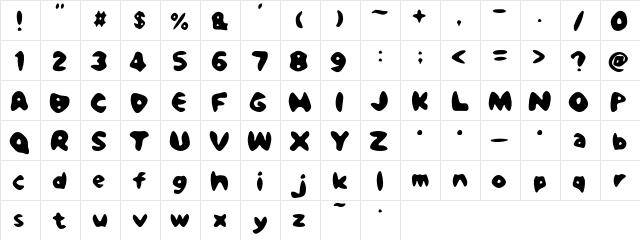
Melt LV2
Design Context for Melt Typeface
Melt is a composed and adaptable typeface that performs quietly and consistently across a wide range of design contexts.